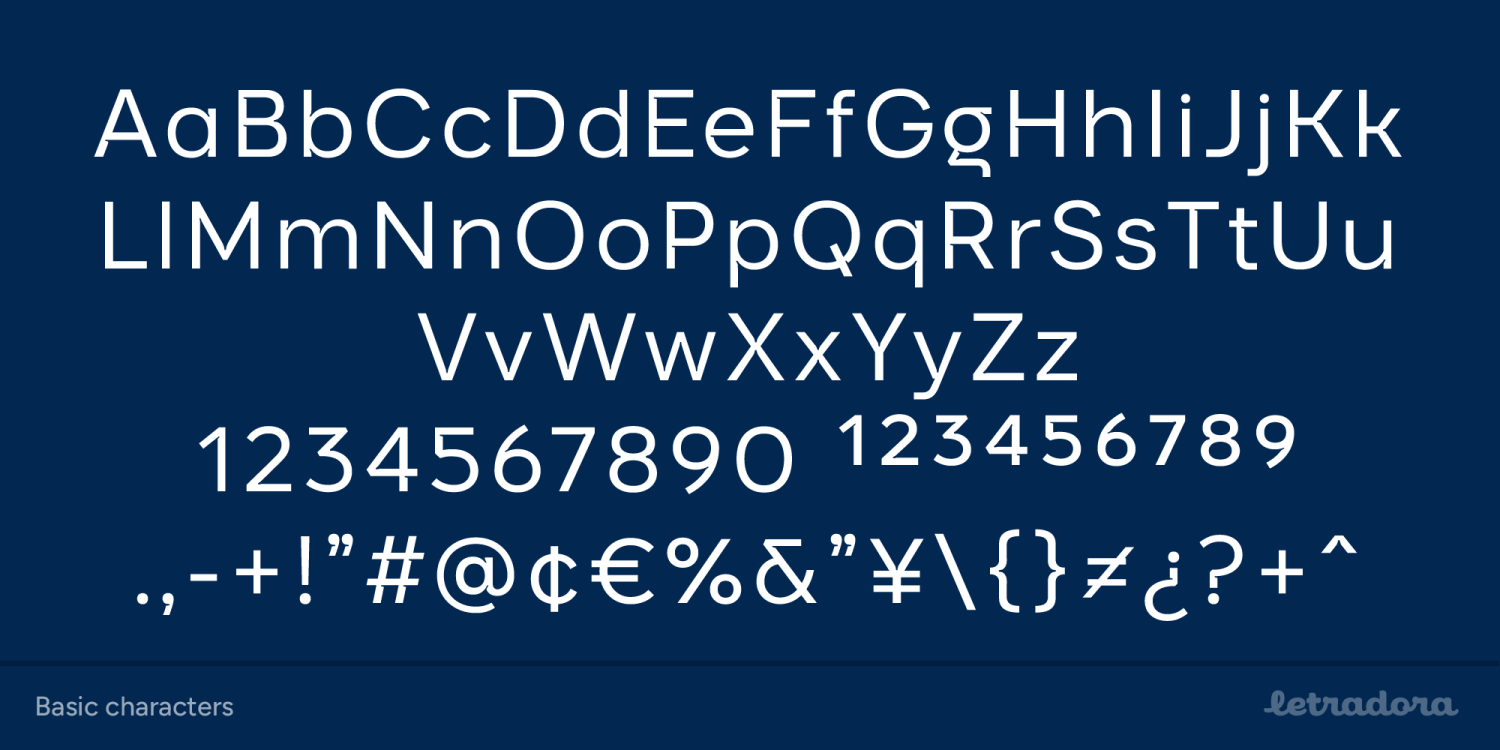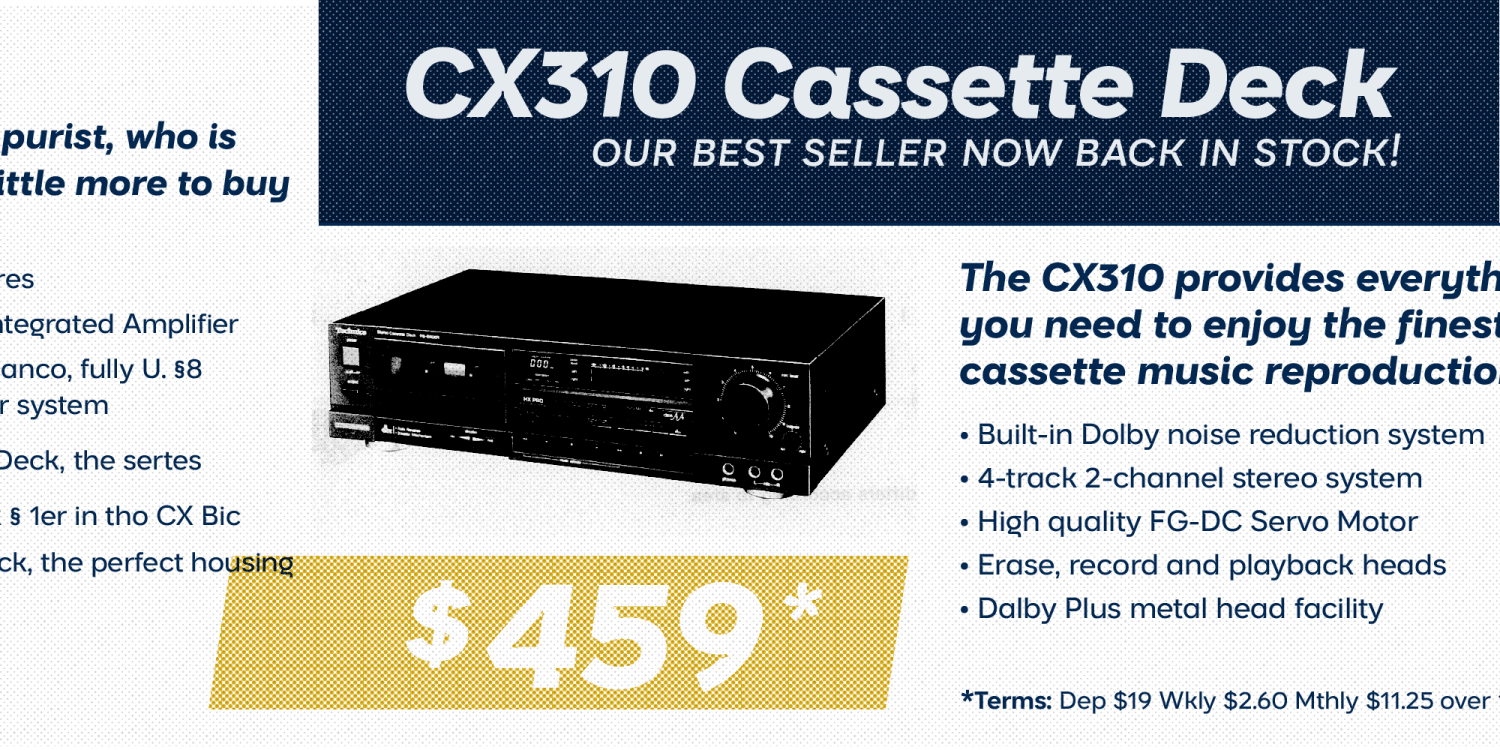
Introducing Trinket: a sleek, modern typeface that combines geometric precision with contemporary style. With inktraps adding a unique touch, Trinket offers 9 weights in regular and italic, along with variable font versions, allowing for effortless customization.…